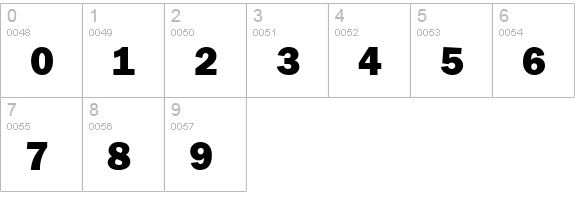
TR FrankfurtGothicHeavy Plain Font Details
TR FrankfurtGothicHeavy Plain is a bold and powerful font with a distinct gothic style. Its sharp edges and strong lines make it perfect for creating eye-catching designs that demand attention. This font exudes a sense of strength and sophistication, making it ideal for headlines, posters, and branding projects. The TR FrankfurtGothicHeavy Plain font is available for free download at FontsMarket.com. This means that you can easily access this versatile and impactful font without any cost. Whether you are a designer looking to add a touch of drama to your work or a business owner seeking a bold font for your branding materials, TR FrankfurtGothicHeavy Plain is a fantastic choice that won't break the bank. Download it today and elevate your designs with its commanding presence.